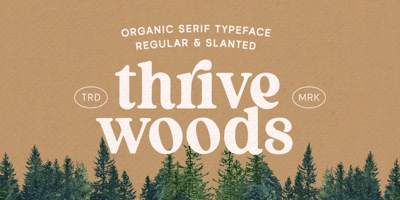
Thrive Woods Font Family was designed by Hendry Juanda and published by Letterhend. Thrive Woods contains 2 styles and family package options. Thrive Woods is a organic serif with stylish looks. This font perfectly made to be applied especially in logo, and the other various formal forms such as invitations, labels, logos, magazines, books, greeting / wedding cards, packaging, fashion, make up, stationery, novels, labels or any type of advertising purpose.Features : Uppercase & lowercase Numbers and punctuation Alternates & Ligatures Multilingual PUA encoded